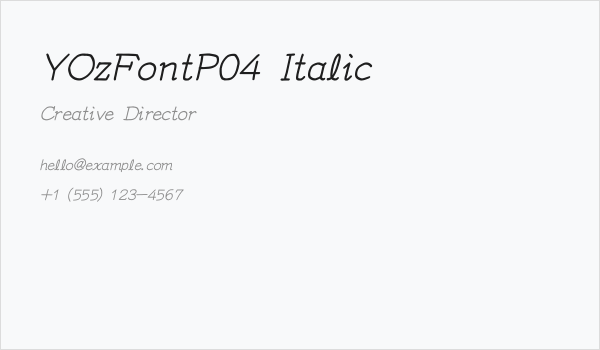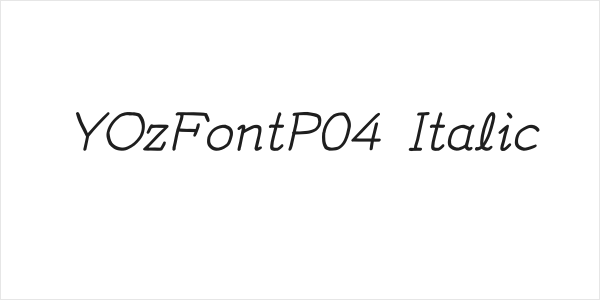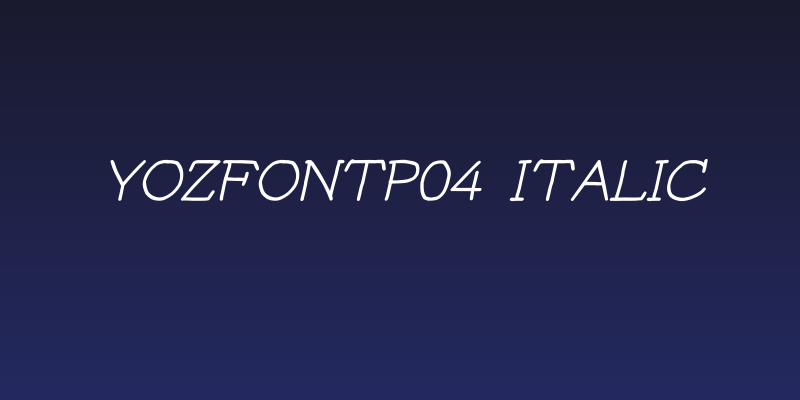
YOzFontP04 Italic Font
YOzFontP04 Italic Description
This font features an elegant italic style with a smooth, flowing appearance. The characters are slightly slanted to the right, giving a sense of motion and fluidity. The strokes are consistent, with a medium contrast between thick and thin lines, adding to its readability and aesthetic appeal. The uppercase letters are well-proportioned, while the lowercase letters maintain a harmonious balance. The numerals are clear and distinct, matching the overall style of the alphabet. Special characters are included, providing versatility for various uses. This font's design is both classic and modern, making it suitable for a wide range of applications.
| Proposed Projects | Ideal for wedding invitations, elegant branding, editorial design, and stylish logos. |